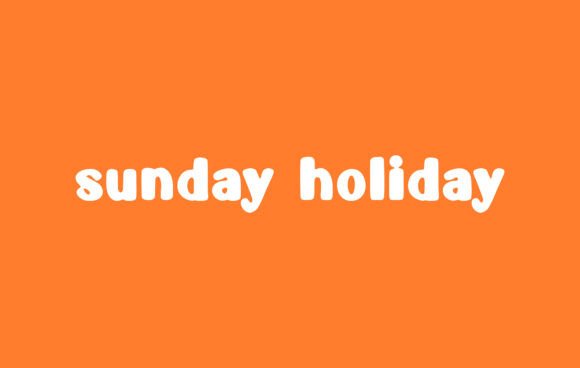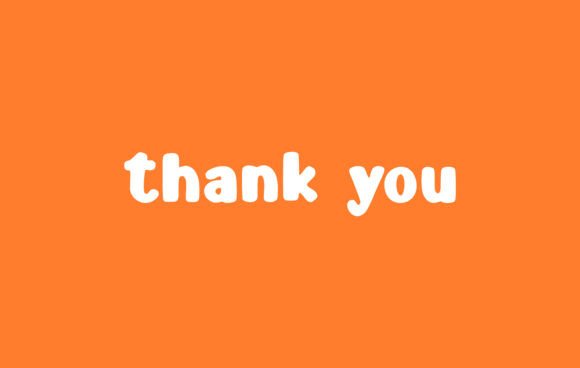
Introduction to Icegelato Font
IceGelato is a sweet and friendly font.
Key Features of Icegelato Font
Why Choose Icegelato Font?
Icegelato Font offers exceptional quality and versatility, making it a valuable addition to your design toolkit. Whether you’re creating for personal projects or commercial use, Icegelato Font delivers professional results.